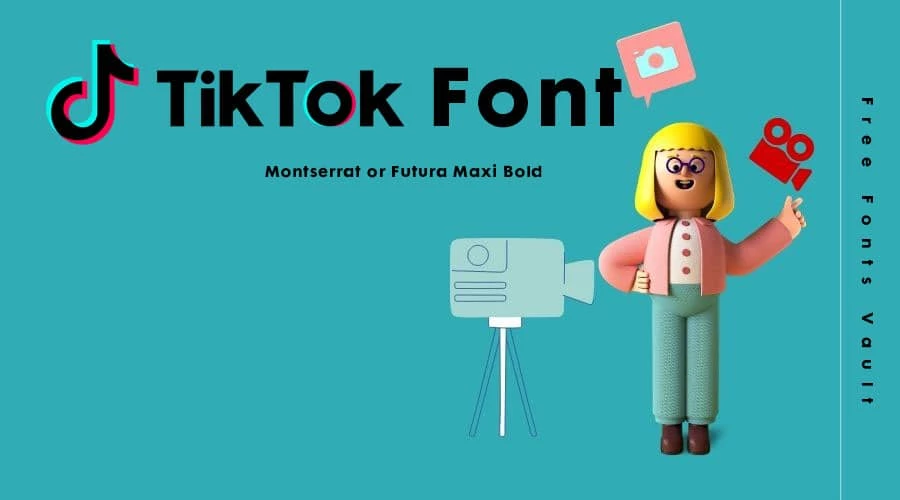
What is Tiktok Font? TikTok is a video-sharing social networking service owned by Chinese company ByteDance Initially released in September 2016. It is known in China as Douyin. The web-based media stage is utilized to make an assortment of short-structure recordings, from types like dance, parody, and instruction, that have a span from fifteen seconds to one moment. TikTok is now popular and widely used in many countries around the world.
TikTok’s lettering logo is very attractive which is why people are more interested in its logo font. After a week of research by our team, we chose two fonts as its logo fonts, one is Montserrat Extra Bold and the other is Futura Maxi Bold.
Let’s start with Montserrat Extra Bold. It is a font of the Montserrat family that was jointly designed by Julieta Ulanovsky, Sol Matas, Juan Pablo del Peral, and Jacques Le Bailly. Montserrat is a Google font. This font was last updated in November 2017 and redrawn by Jacques Le Bailly. It is a unique and elegant font. And we think this font has been used in TikTok’s logo. So we can also call this font TikTok font.
The second font in our study is Futura Maxi Bold. We think this font has also been used in TikTok’s logo. Futura Maxi Bold is a font of the Futura family which is a geometric sans-serif typeface designed by German type designer Paul Renner. Futura was released in 1927. We think this font is also used in TikTok’s logo so it can also be called TokToK font.